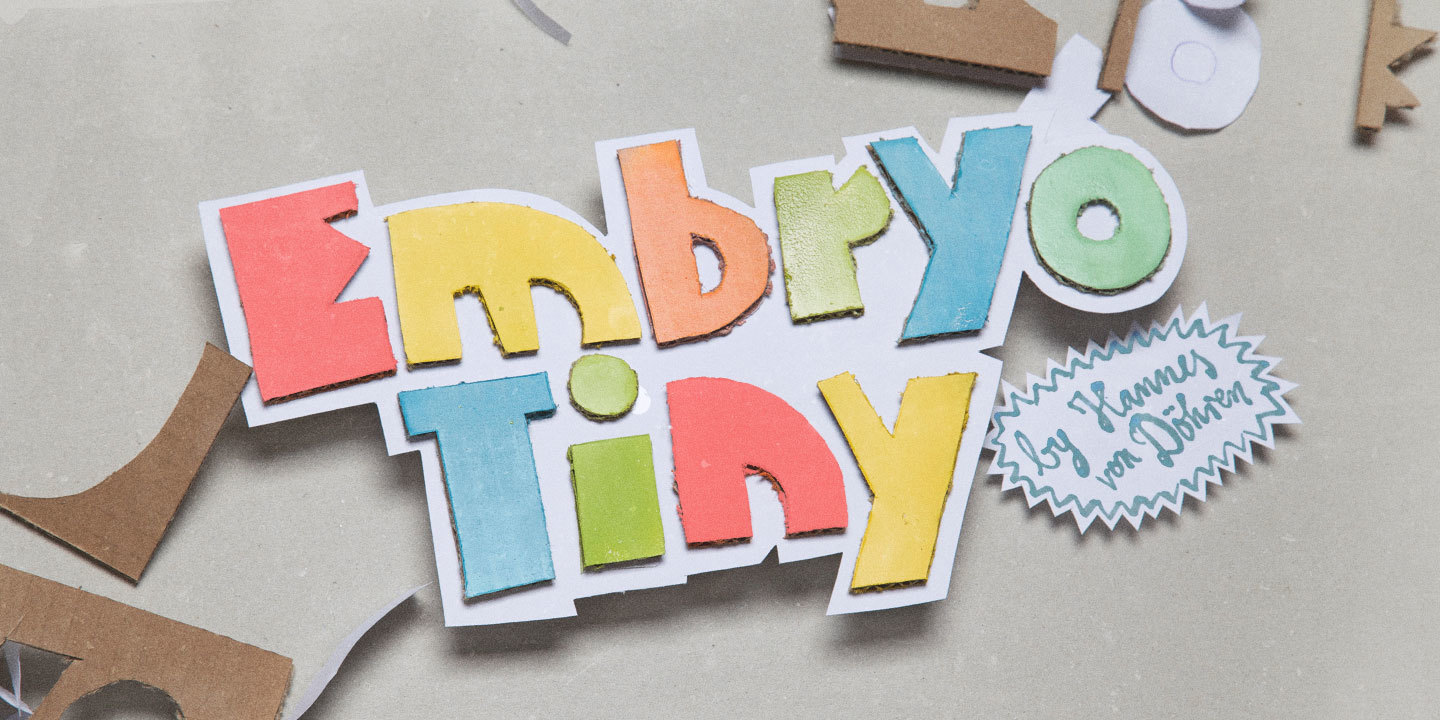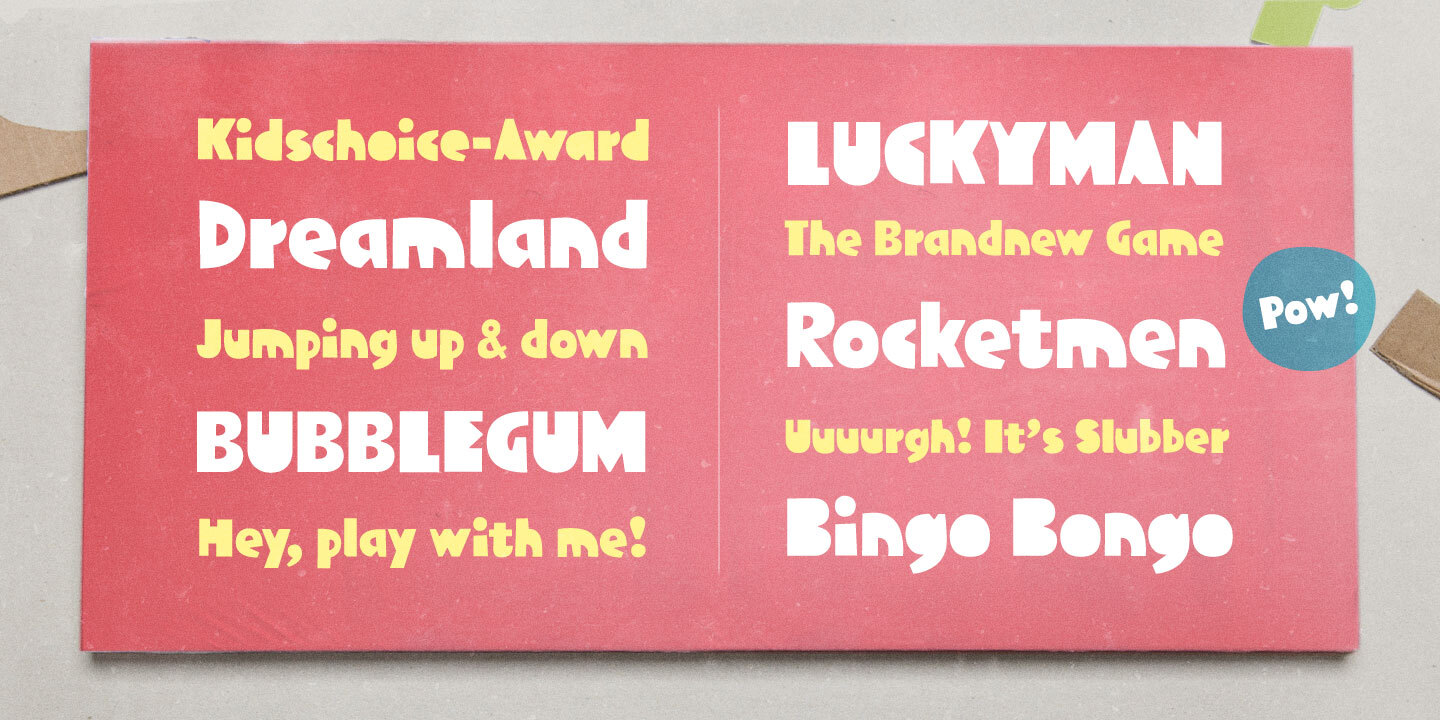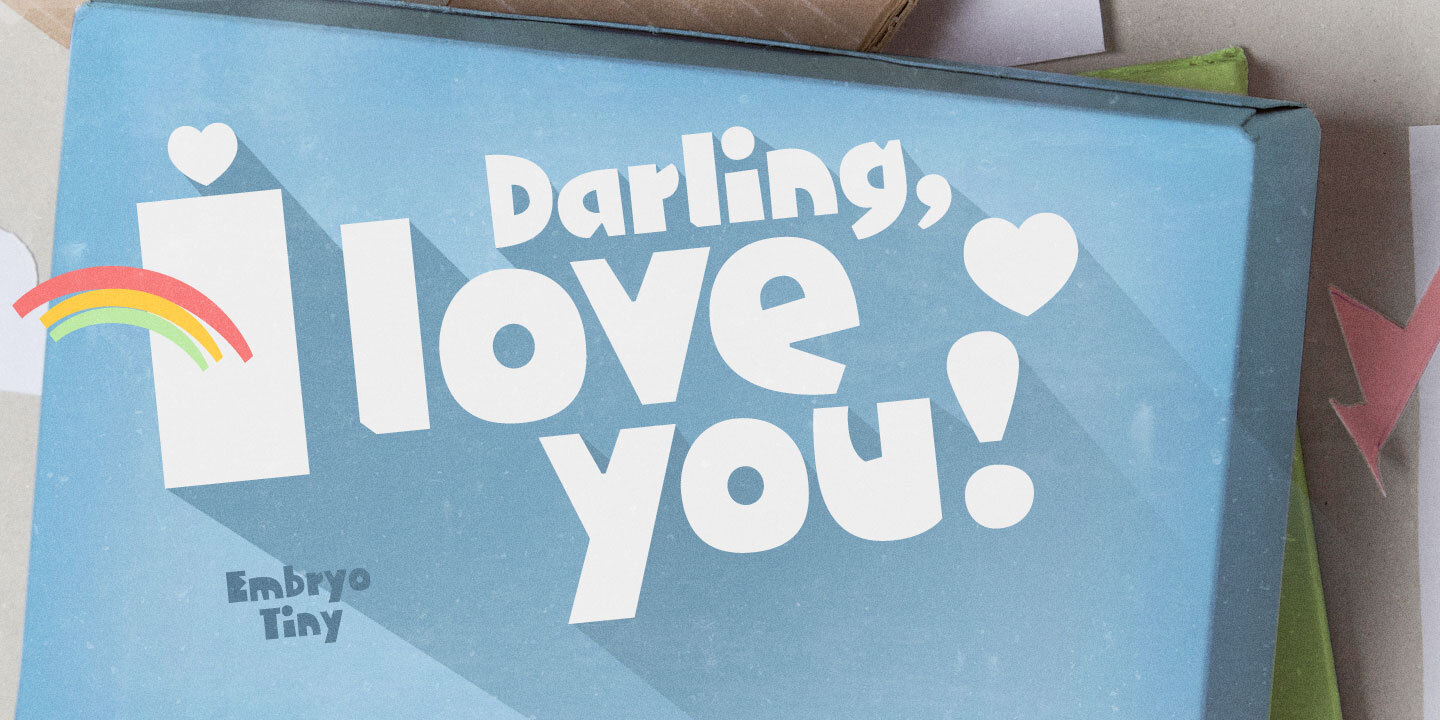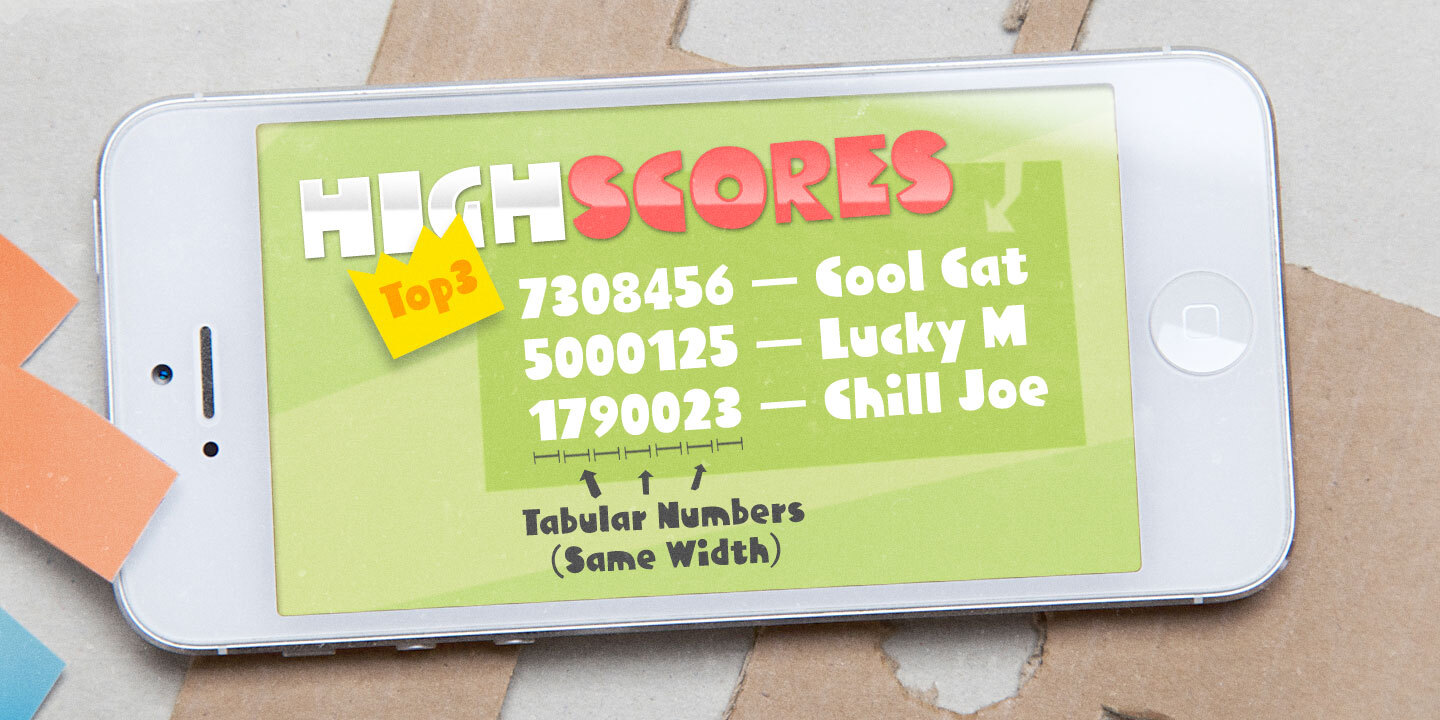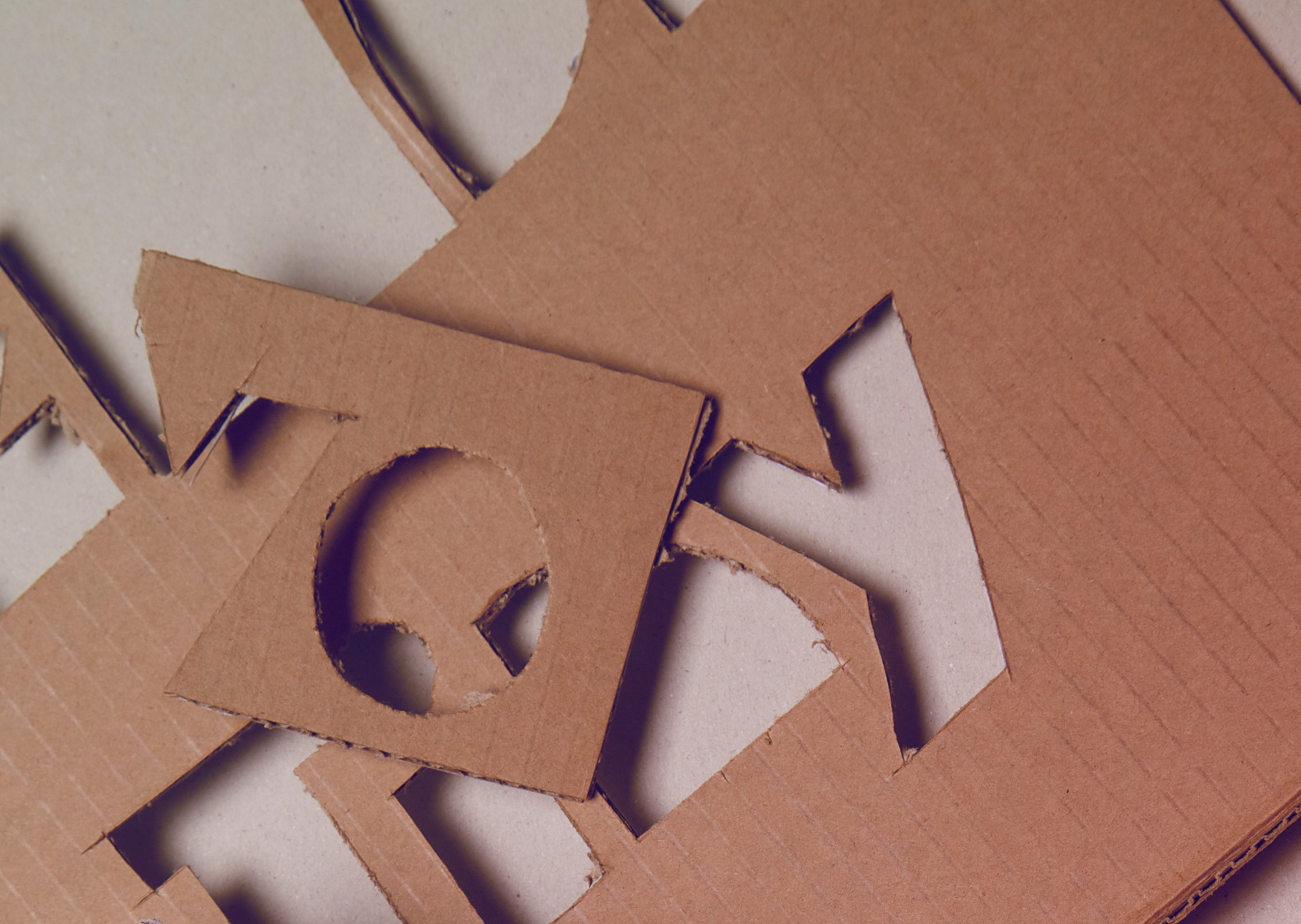
Embryo
Embryo DS2
What if a typeface evolves like an animal?
The idea: Create a typeface which is not completely evolved — If you adopt the viewpoint that a typeface is alive and its refined developed shapes derive from basic shapes such as a circle or square, an embryo typeface would probably look like this. The letters can already be recognised, but they are still not completely finished. The result is an ultra sweet, super heavy font which is already readable. The next step was to design Embryo Tiny which is even more readable — even in smaller sizes.